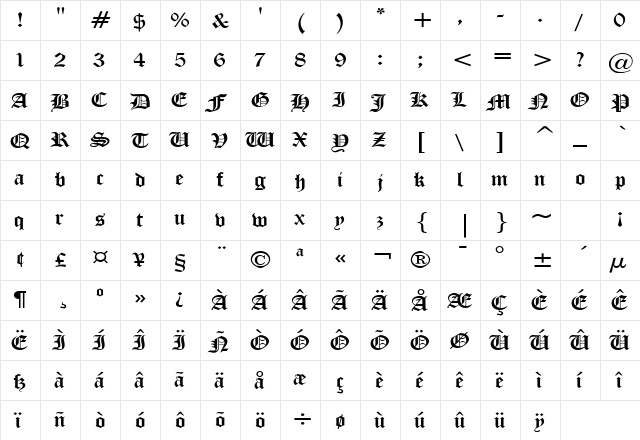
Midevil Wide Normal
Design Context for Midevil Wide Typeface
Midevil Wide is a composed and adaptable typeface that performs quietly and consistently across a wide range of design contexts.